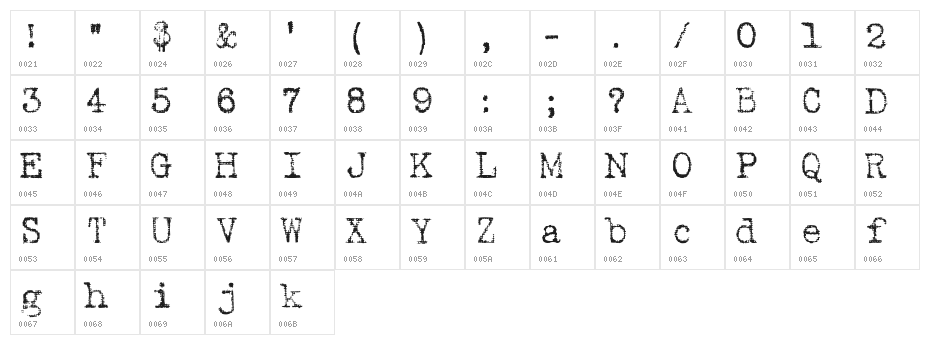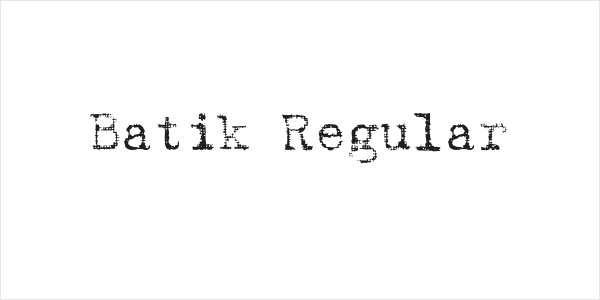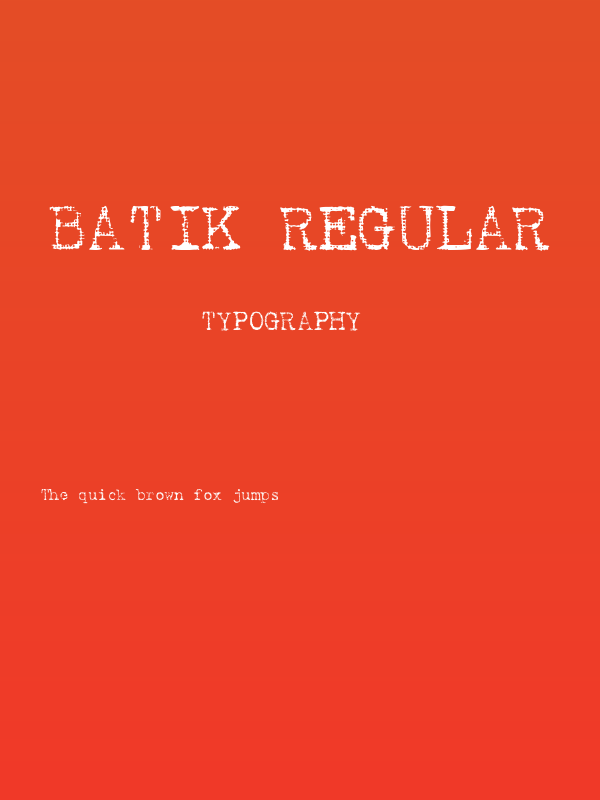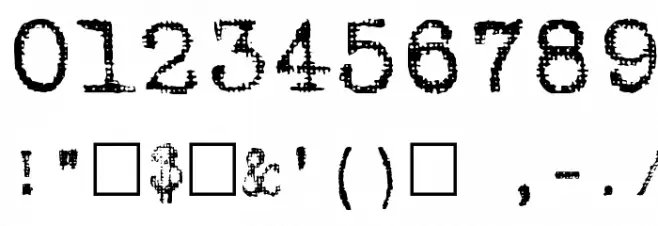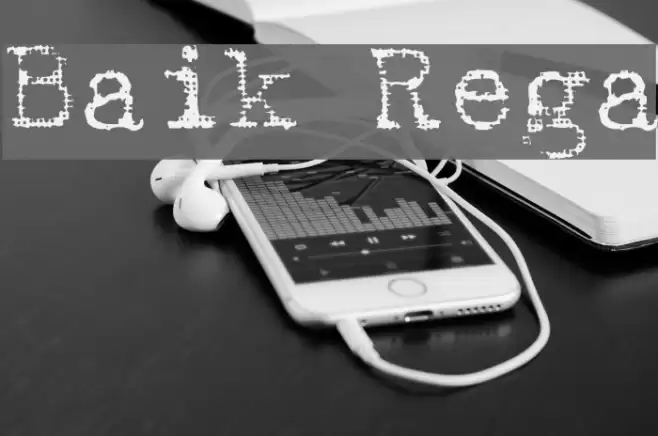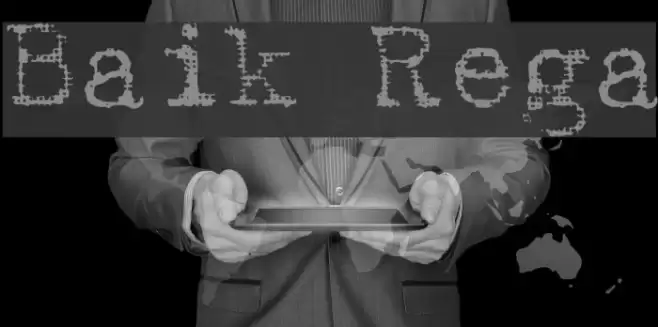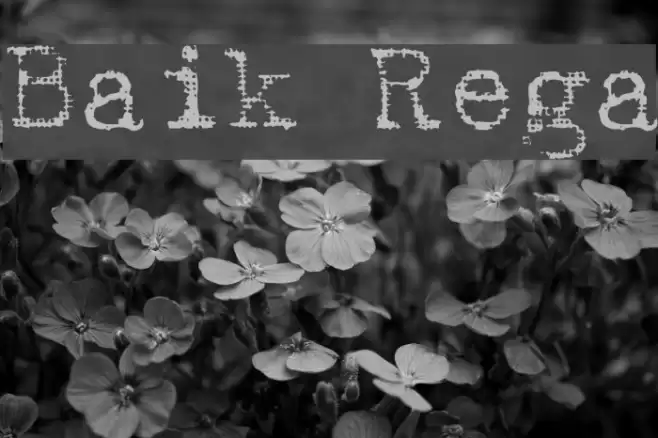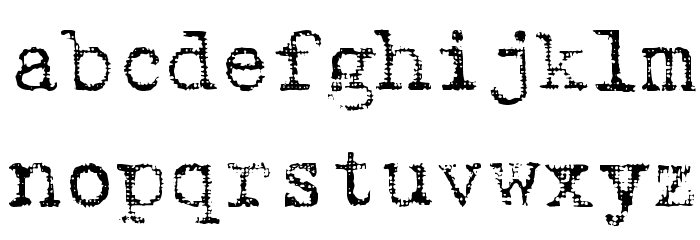
Batik Regular Font
Batik Regular Description
This font features a distressed, textured appearance that gives it a vintage and worn look. The characters are serifed, with each letter displaying a unique pattern of roughness and irregularity, reminiscent of old typewriter text or weathered print. The uppercase and lowercase letters maintain a consistent style, with the serifs adding a touch of classic elegance despite the overall rugged texture. Numbers and special characters follow the same design, ensuring a cohesive look across all glyphs. This font's distinctive style makes it ideal for projects that require a touch of nostalgia or a handcrafted feel.
| Overall Style | Vintage |
| Use Case | Headlines, Logos, Decorative text |
| Proposed Projects | Ideal for vintage-themed designs, posters, album covers, and branding that requires a rustic or handcrafted aesthetic. |